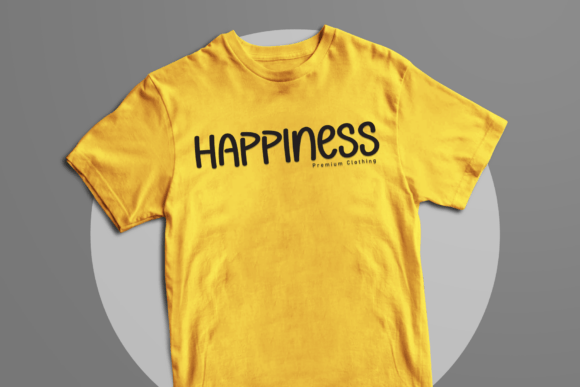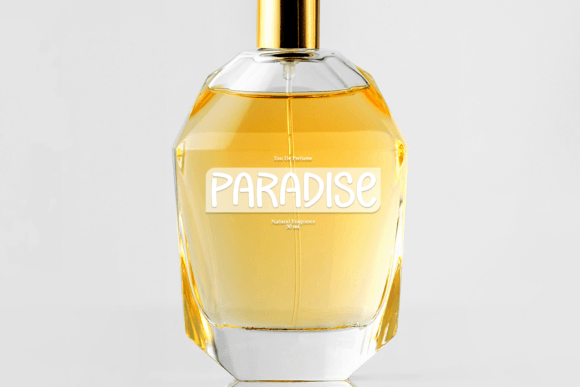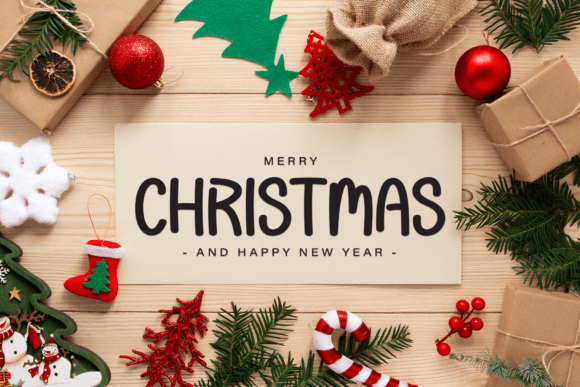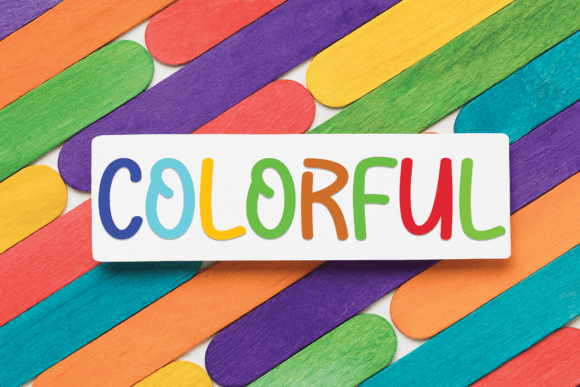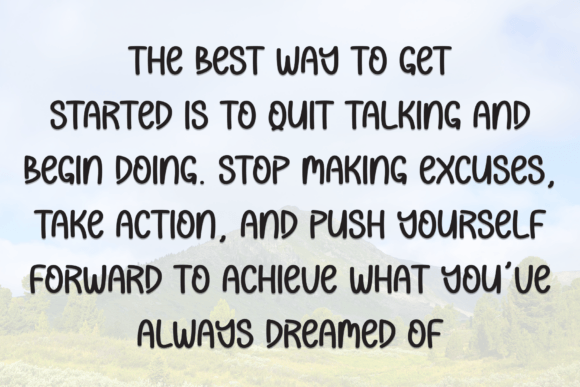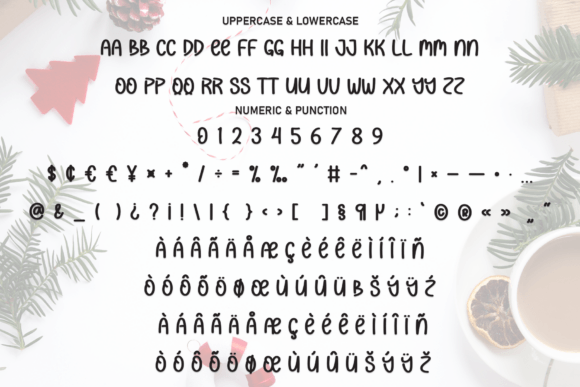
December Christmas Font: A Playful and Charming Handwritten Display Font
Are you looking for a font that can add a touch of magic to your designs? Look no further than the December Christmas Font, a playful and engaging handwritten display font that is perfect for infusing a delightful touch into your design needs. This beautifully crafted font is designed to bring a sense of joy and whimsy to your projects, making it ideal for a wide range of design applications.
A Perfect Blend of Sweet and Friendly Aesthetics
The December Christmas Font is a balanced amalgamation of sweet and friendly aesthetics, making it perfect for designers and crafters who want to create stunning designs that exude fun and tenderness. This font is user-friendly and wonderfully adorable, making it easy to use for designers of all skill levels. Whether you’re creating personalized wedding invitations, heartfelt greeting cards, or festive holiday designs, this font is sure to elevate your craft and add a sprinkle of joy to your projects.
The December Christmas Font is incredibly versatile, making it perfect for a wide range of design applications. Here are just a few ideas to get you started:
• Personalized wedding invitations and wedding stationery
• Heartfelt greeting cards and gift tags
• Festive holiday designs, including Christmas cards and decorations
• Fun and playful party invitations and decorations
• Beautiful and unique typography designs
Why Choose the December Christmas Font?
So why choose the December Christmas Font for your design needs? Here are just a few reasons why this font stands out:
• Playful and engaging: This font is designed to bring a sense of joy and whimsy to your designs, making it perfect for projects that require a playful touch.
• User-friendly: The December Christmas Font is easy to use and works seamlessly with a wide range of design software.
• Versatile: This font is perfect for a wide range of design applications, from wedding invitations to holiday designs.
• Unique and eye-catching: The December Christmas Font is a unique and eye-catching font that is sure to make your designs stand out.
Tips for Using the December Christmas Font
Here are a few tips for using the December Christmas Font in your designs:
• Pair with complementary fonts: Pair the December Christmas Font with complementary fonts to create a unique and eye-catching typography design.
• Experiment with colors: Experiment with different colors and textures to add depth and interest to your designs.
• Use for headlines and titles: Use the December Christmas Font for headlines and titles to add a playful and engaging touch to your designs.
• Add embellishments: Add embellishments, such as glitter or snowflakes, to give your designs a festive touch.
The December Christmas Font is a playful and charming handwritten display font that is perfect for designers and crafters who want to add a touch of magic to their designs. With its balanced amalgamation of sweet and friendly aesthetics, this font is sure to elevate your craft and add a sprinkle of joy to your projects. Whether you’re creating personalized wedding invitations, heartfelt greeting cards, or festive holiday designs, this font is sure to be a hit. So why wait? Download the December Christmas Font today and start creating stunning designs that exude fun and tenderness!